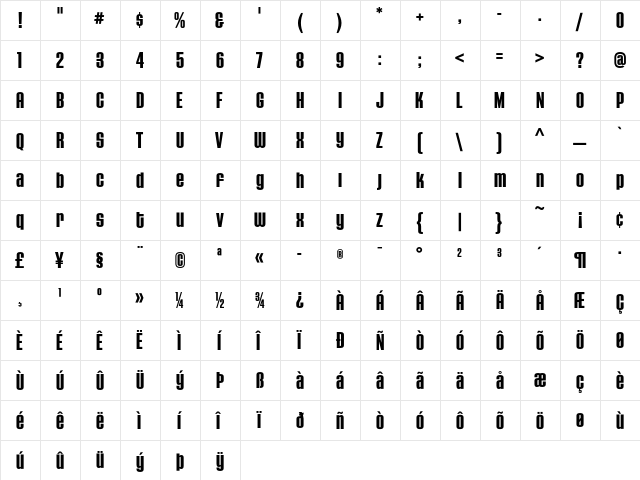
HouseGothicHG23Cond BOLD3
BOLD3 ·  Allen Mercer/Tal Leming ·
DesignerAllen Mercer/Tal Leming
Design Context for HouseGothicHG23Cond Typeface
HouseGothicHG23Cond takes a clean, functional approach — its unadorned letterforms prioritise legibility and work reliably across screen and print environments. The heavy weight commands attention and anchors typographic hierarchies. The condensed width makes it efficient for tight spaces without sacrificing legibility.
Well-suited to navigation labels, product packaging, and anywhere legibility at scale is essential.
Font Pairing: Use HouseGothicHG23Cond for headlines alongside a lighter-weight sans or serif for body copy to establish clear visual hierarchy.
Pro Tip: Use HouseGothicHG23Cond tightly set in headlines and banners — its condensed proportions make it ideal for maximum impact in minimum horizontal space.